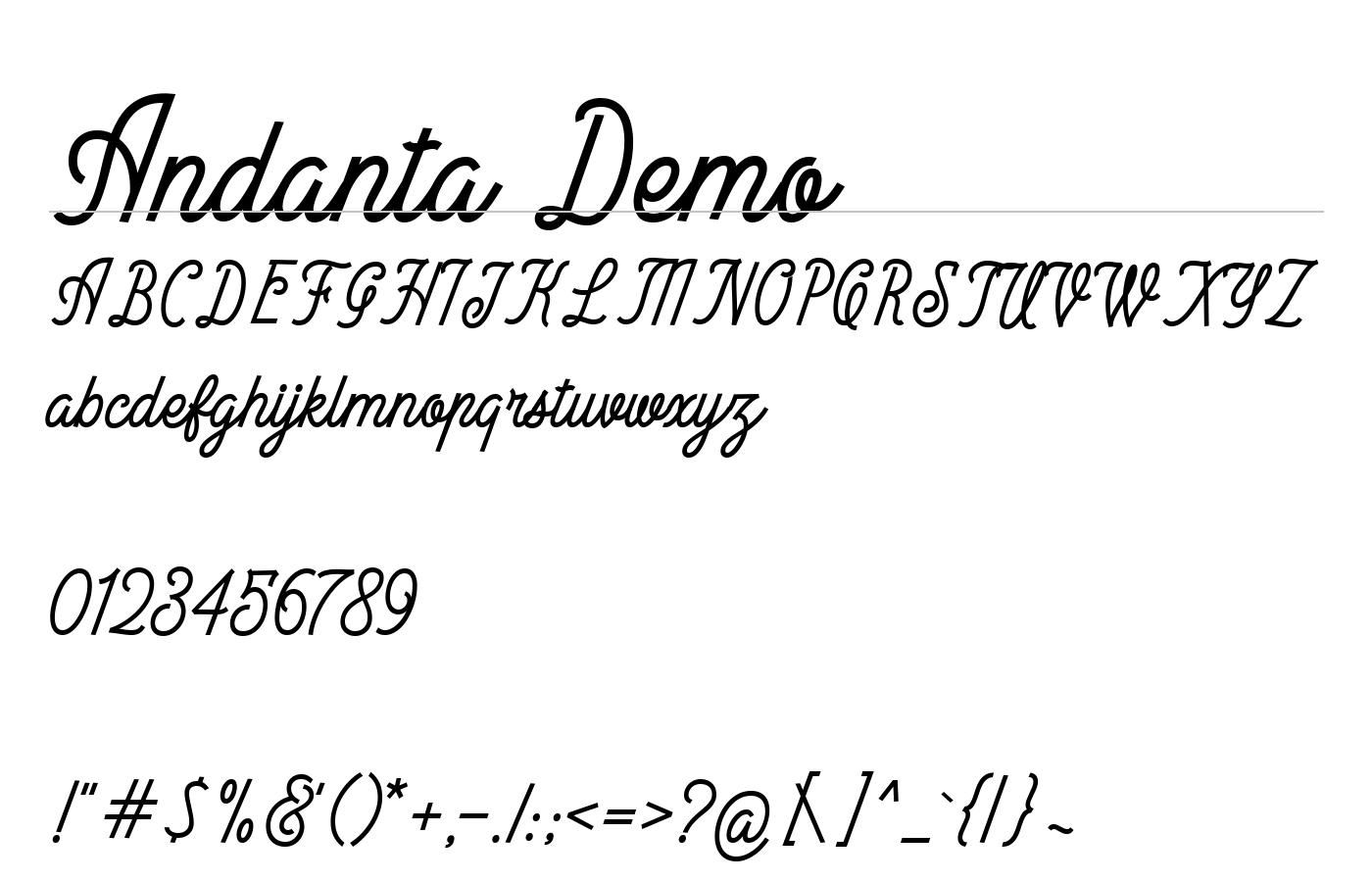
Andanta Demo is an elegant script font with a graceful, flowing style that mimics classic handwriting. Its light weight and smooth, connected letterforms give it a refined and sophisticated feel, making it ideal for invitations, branding, and any design where a touch of elegance and personality is desired. This font works well in both display and smaller text settings where a delicate, stylish impression is needed.
Andanta Demo Font
About Andanta Demo Font